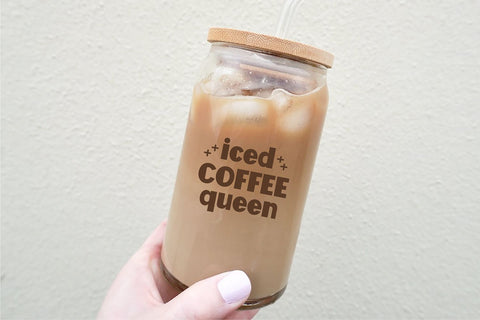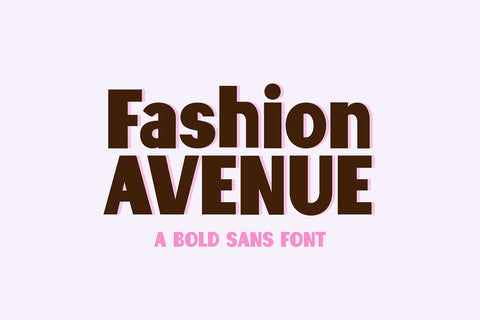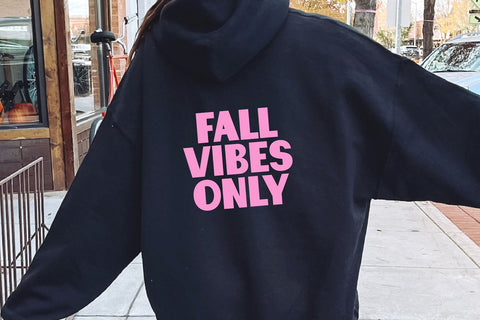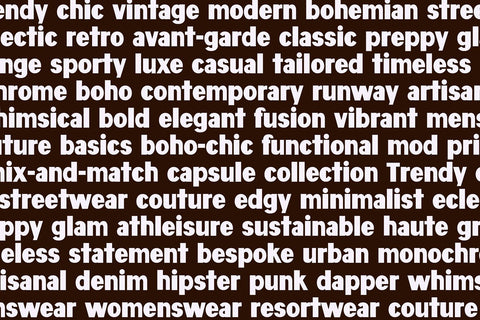
Fashion Avenue Modern Sans Font
"Fashion Avenue" a bold simple sans display font.
Multilingual support.
This font is a bold display font that is perfect for social media or crafty projects. Use if for branding, crafts for decor, invitations, and more! All caps glyphs, numbers, and punctuation marks, and intl characters.